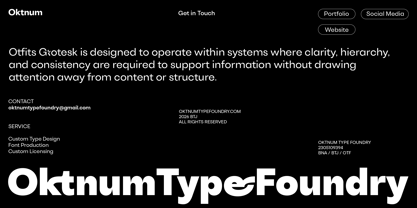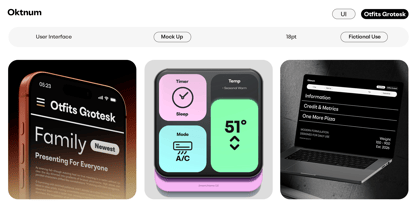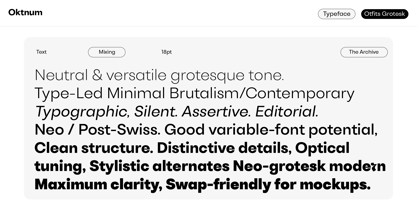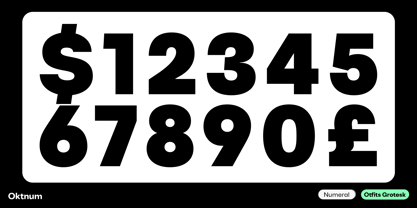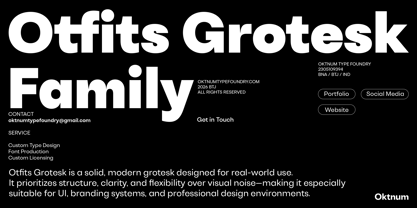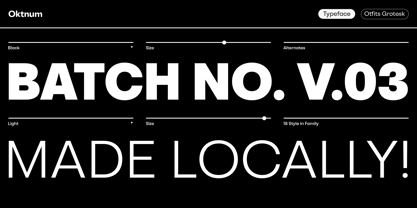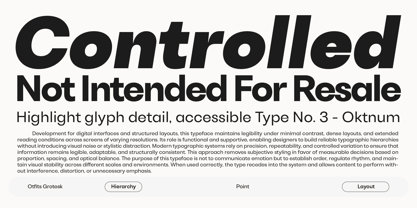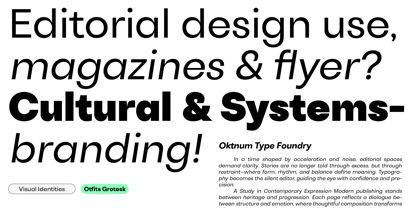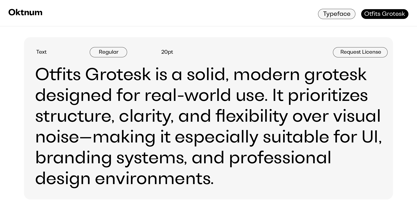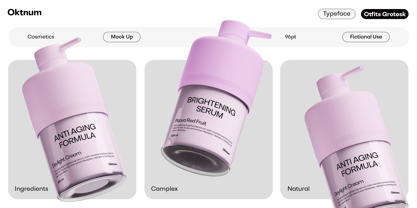
Otfits Grotesk
by Oktnum Type Foundry
The Otfits Grotesk Font Family was designed by Sarwo Edi and published by Oktnum Type Foundry. Otfits Grotesk contains 19 styles and family package options. More about this family
Otfits Grotesk is a contemporary grotesque sans-serif typeface crafted with clarity, versatility, and modern usability at its core. Built on a neutral yet confident structure, Otfits Grotesk seamlessly balances clean geometric logic with subtle humanist nuances, making it suitable for a wide array of design contexts. The letterforms exhibit controlled proportions, consistent stroke modulation, and refined terminals, creating a professional and reliable typographic voice. Its overall rhythm is calm and stable, allowing the typeface to excel in both display and text settings. As a variable font, Otfits Grotesk provides flexible weight control, enabling designers to fine-tune hierarchy and expression within a single typographic system. This versatility makes it an ideal choice for branding systems, digital interfaces, editorial layouts, and contemporary visual identities. With its functional character and understated personality, Otfits Grotesk delivers a modern grotesque aesthetic that feels efficient, adaptable, and timeless.
Oktnum Type Foundry is an independent type design studio dedicated to crafting purposeful, high-quality typefaces for forward-thinking creatives, brands, publishers, and anyone in need of distinctive fonts. With a deep respect for typographic heritage and a sharp eye on the future, we design type that bridges timeless aesthetics with contemporary functionality.Our catalog spans a wide range of styles—from expressive display types to refined text faces—each built with precision, versatility, and personality. Whether you're designing for print, digital, or beyond, Oktnum Type Foundry provides the typographic tools to elevate your voice and visual identity.